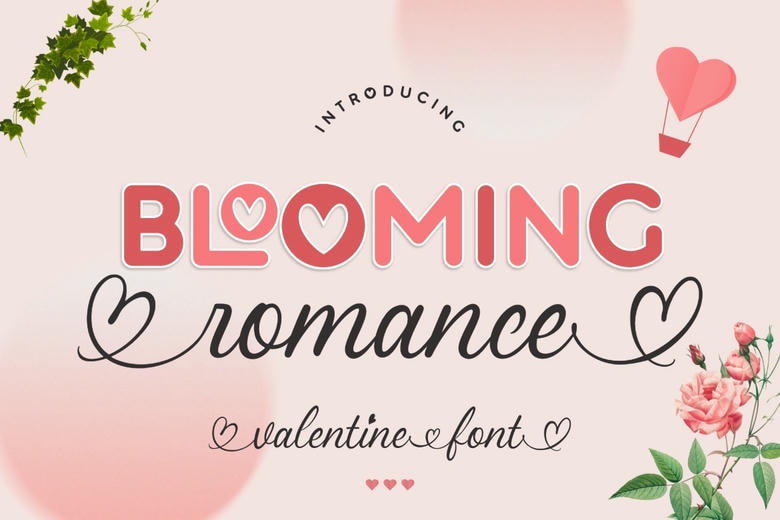
Blooming Romance Font Duo
Bring the touch of love and class in your creative designs by injecting them with Blooming Romance; a fascinating valentine inspired font couple. This is a pair of bold whimsical typeface which has heart details that are cute and sure to make your headlines look better with a touch of heart. Together with it, there is a romantically tender font of writing with flowing lines, beautifully decorated with hearts, which will make your written text a bit more graceful.
Blooming Romance is a good option to take on a valentine day venture, wedding stationery, brand images that revolve around love and many more due to the harmony between playfulness and elegance in the designs. Let Blooming Romance infuse the warmth and tenderness of your design masterpieces!